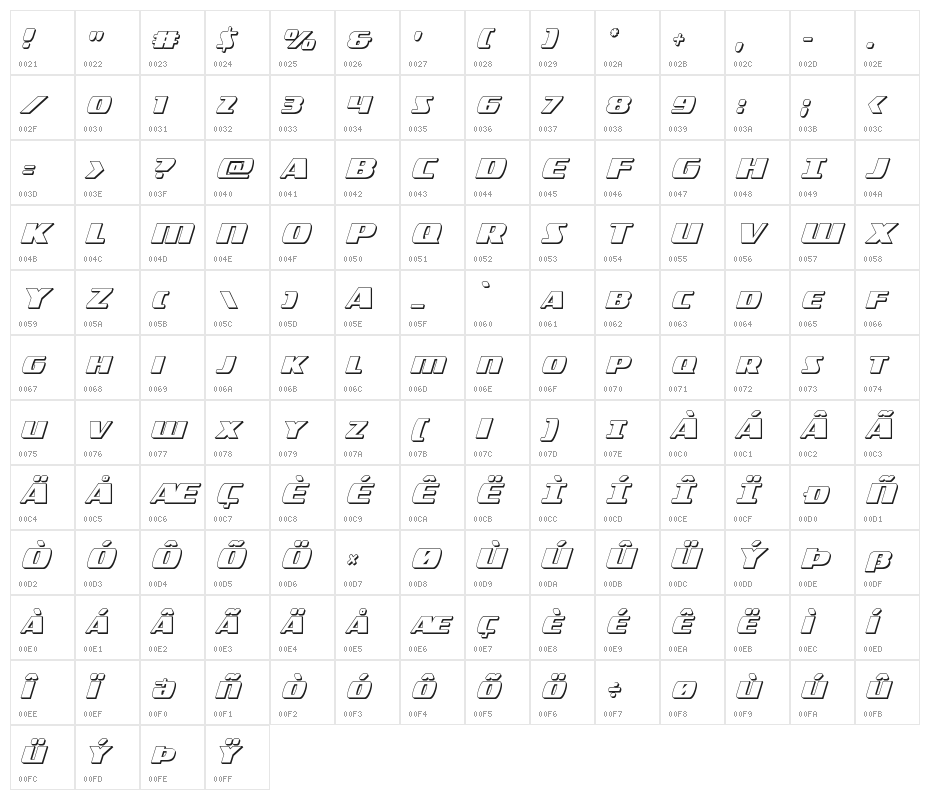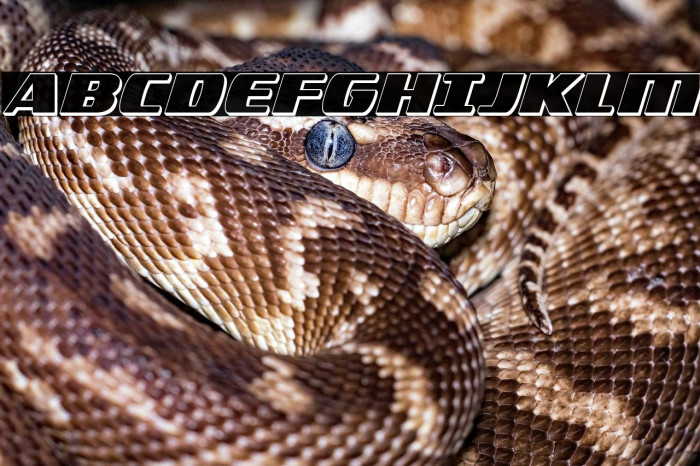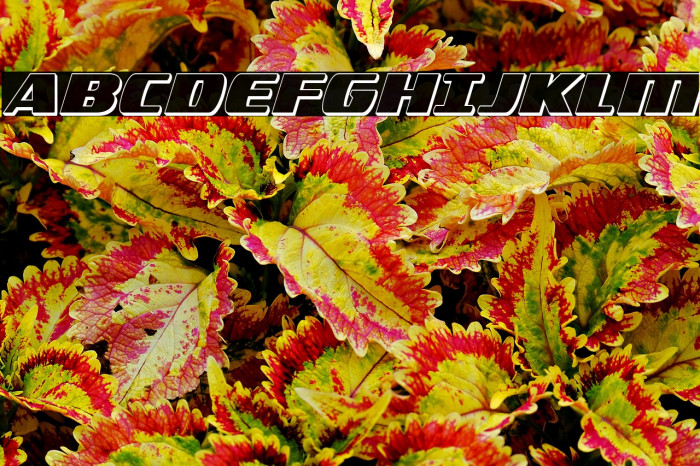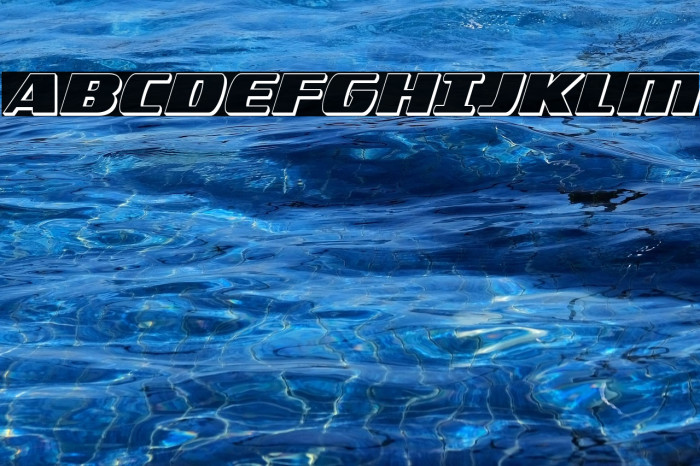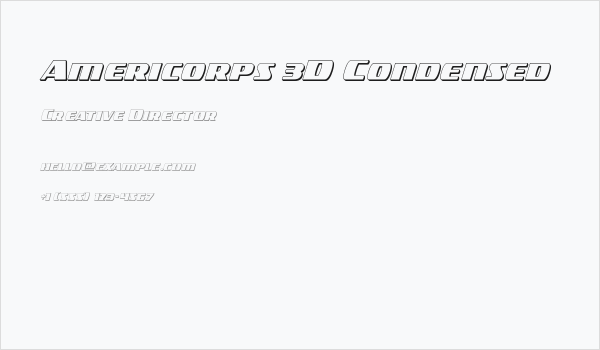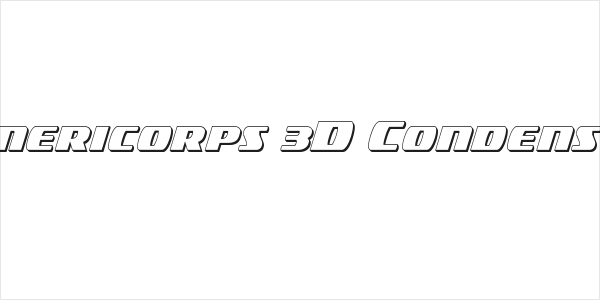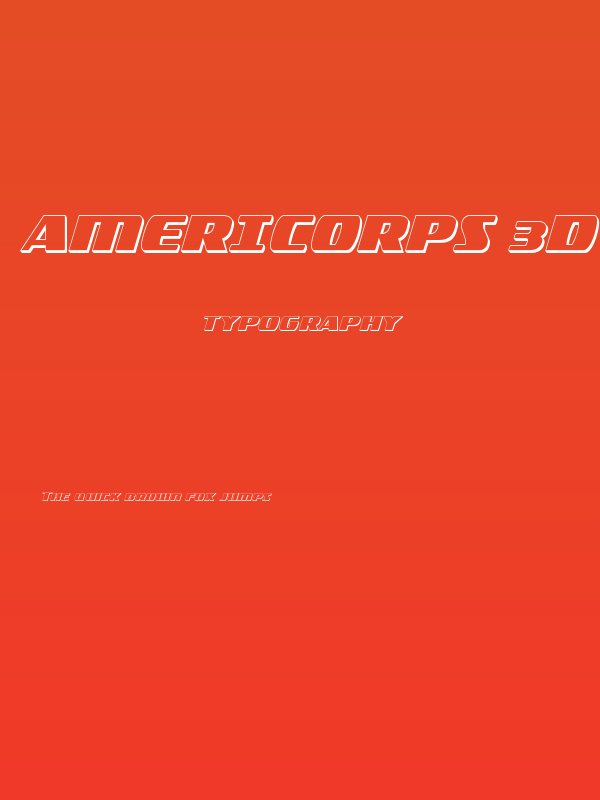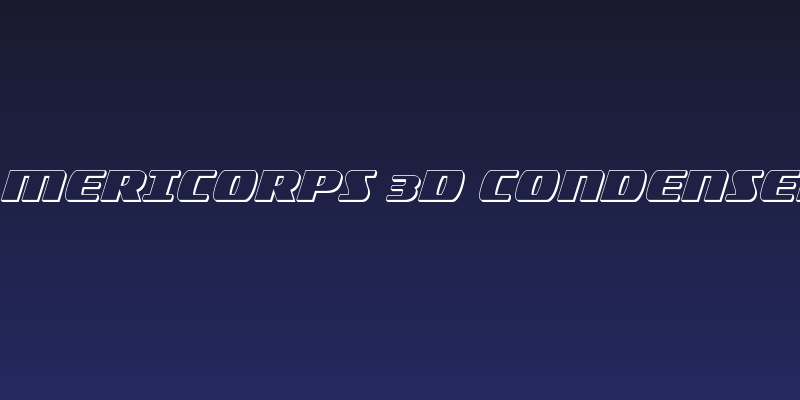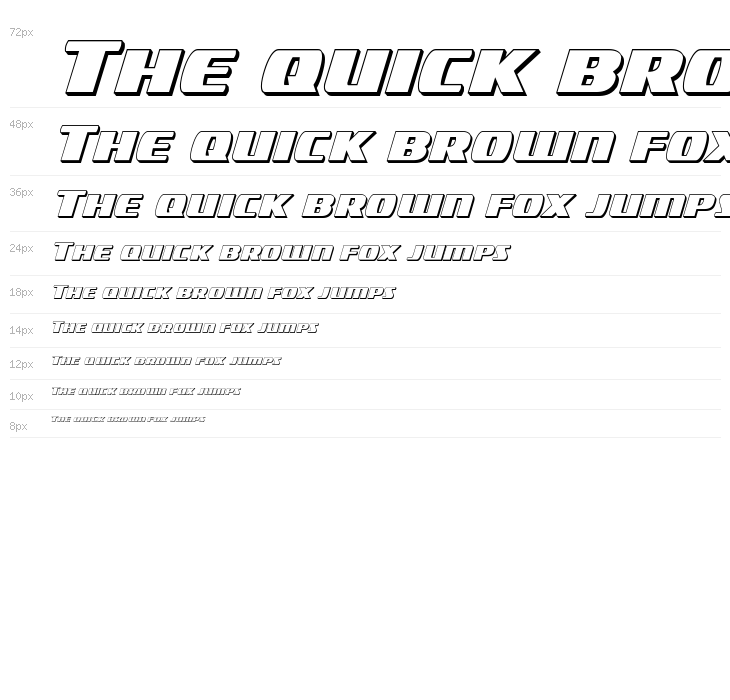
Americorps 3D Condensed Font
Americorps 3D Condensed Description
This font features a bold, three-dimensional appearance with a condensed structure. The characters are outlined, giving them a distinct, shadowed effect that adds depth and visual interest. The uppercase letters are uniform in height, with a geometric style that emphasizes straight lines and sharp angles. The numerals and special characters maintain this cohesive design, ensuring consistency across all glyphs. This font's unique style makes it stand out, ideal for projects that require a strong visual impact.
| Proposed Projects | Ideal for posters, logos, video game graphics, and any design needing a striking, modern look. |